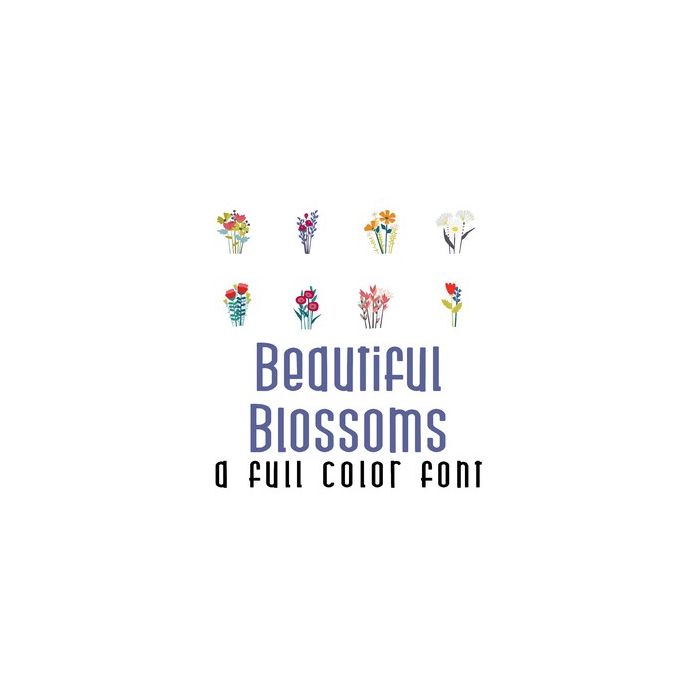
Beautiful Blossoms Full Color Font
A full-color font stores svg data inside an Open Type font file. This font will look black if not used in a program like Silhouette Studio which is compatible. Images can be pulled apart with some vector programs like Illustrator and cut with your cutting machine. This adorable full-color doodlebat font features 26 beautiful florals. Perfect for cards, crafts, gifts, decor, scrapbook pages, planner stickers, and more!